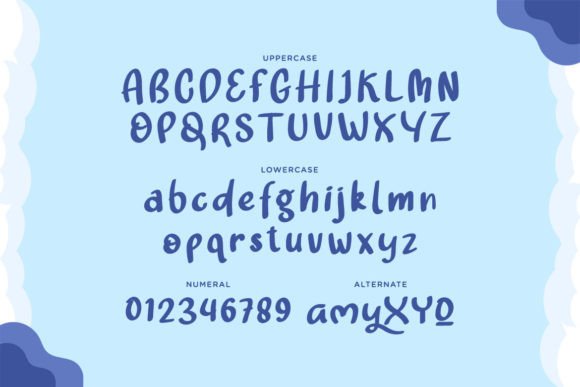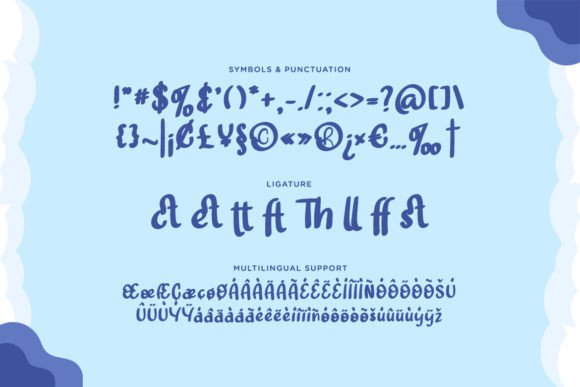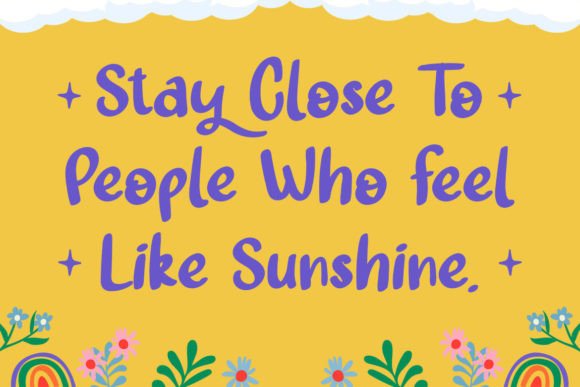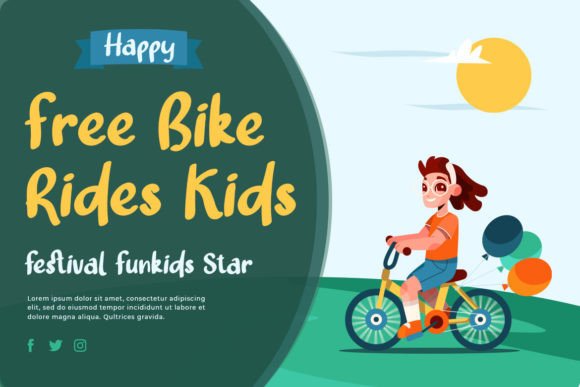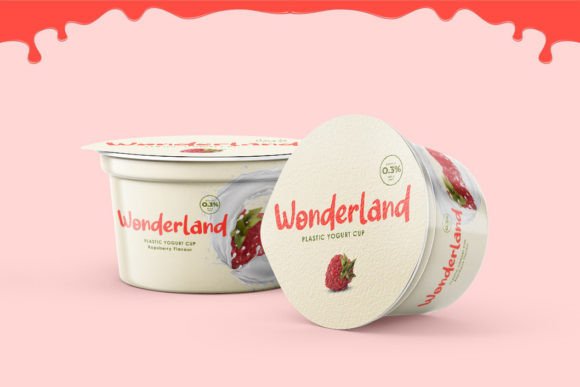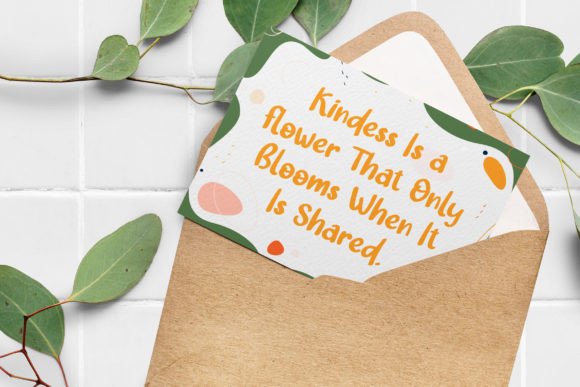
Being Guys Font: The Perfect Addition to Your Kids-Themed Design
Are you a designer or crafter looking for a font that can add a touch of fun and playfulness to your kids-themed design? Look no further than Being Guys Font! This hand-drawn display poster font is perfect for creating eye-catching and engaging designs that kids will love.
What is Being Guys Font?
Being Guys Font is a unique and charming font that is designed to look like a hand-drawn display poster. The font features cute and fun characters that are sure to bring a smile to kids’ faces. With its playful and informal style, Being Guys Font is perfect for use in kids-themed designs, such as posters, flyers, brochures, and more.
Key Features of Being Guys Font
- Hand-drawn design: Being Guys Font is a hand-drawn font, which gives it a unique and personal touch.
- Cute and fun characters: The font features adorable characters that are sure to delight kids.
- Display poster style: The font is designed to look like a display poster, making it perfect for use in eye-catching designs.
- Kids-themed design: Being Guys Font is specifically designed for use in kids-themed designs, making it a great choice for designers and crafters who work with this niche.
Uses for Being Guys Font
Being Guys Font is a versatile font that can be used in a variety of design projects, including:
- Posters and flyers: Use Being Guys Font to create eye-catching posters and flyers for kids’ events, such as birthday parties, concerts, and festivals.
- Brochures and catalogs: Add a touch of fun and playfulness to your brochures and catalogs with Being Guys Font.
- Social media graphics: Use Being Guys Font to create engaging social media graphics for kids’ brands and products.
- Craft projects: Being Guys Font is also perfect for use in craft projects, such as making cards, gift tags, and other DIY projects.
Why Choose Being Guys Font?
There are many fonts available that are designed for use in kids-themed designs, but Being Guys Font stands out from the crowd. Here are just a few reasons why:
- Unique design: Being Guys Font has a unique and charming design that is sure to grab attention.
- Easy to read: Despite its playful style, Being Guys Font is easy to read, making it perfect for use in designs where you want to communicate a message.
- Versatile: Being Guys Font can be used in a variety of design projects, from posters and flyers to social media graphics and craft projects.
Tips for Using Being Guys Font
Here are a few tips for using Being Guys Font in your designs:
- Use it sparingly: Being Guys Font is a bold and playful font, so use it sparingly to add emphasis to your design.
- Pair it with other fonts: Being Guys Font pairs well with other fonts, such as sans-serif fonts, to create a visually appealing design.
- Experiment with colors: Being Guys Font looks great in bright, bold colors, so don’t be afraid to experiment with different color schemes.
Being Guys Font is a fun and playful font that is perfect for use in kids-themed designs. With its unique and charming design, Being Guys Font is sure to grab attention and bring a smile to kids’ faces. Whether you’re a designer or crafter, Being Guys Font is a great choice for your next project.